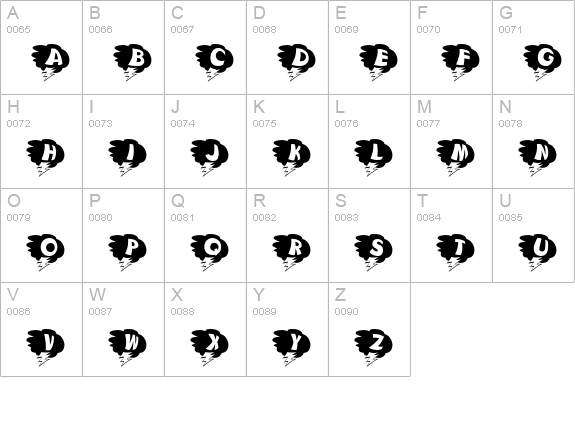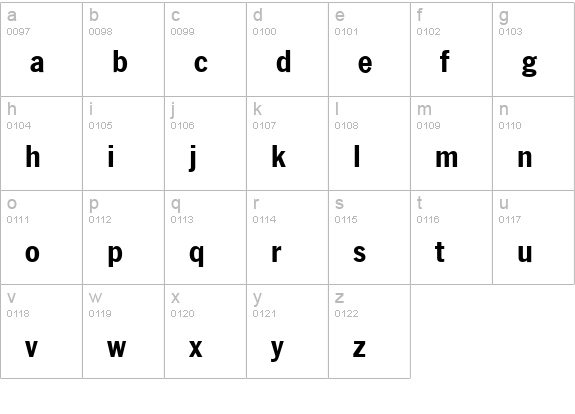
KAStorm Font Details
Introducing KAStorm, a mesmerizing font that will storm its way into your designs and captivate your audience. With its bold and striking letterforms, this font exudes power and confidence, making it perfect for headlines, logos, and branding projects. But what truly sets KAStorm apart is that it is not only stunning, but also free! Yes, you heard it right. This incredible font is freely available to download at FontsMarket.com, a trusted source for high-quality fonts. With KAStorm, you can unleash your creativity without any limitations. Its unique and edgy style will make your designs stand out from the crowd, leaving a lasting impression on anyone who sees them. Whether you're designing a poster, a website, or a social media graphic, KAStorm will add a touch of sophistication and flair. The versatility of KAStorm knows no bounds. It can be used in a variety of design projects, from fashion and beauty to technology and sports. Its strong and bold presence will instantly grab attention and make a statement. So, don't miss out on this incredible opportunity to enhance your designs with KAStorm. Download it for free today at FontsMarket.com and take your creativity to new heights. Get ready to unleash the storm!